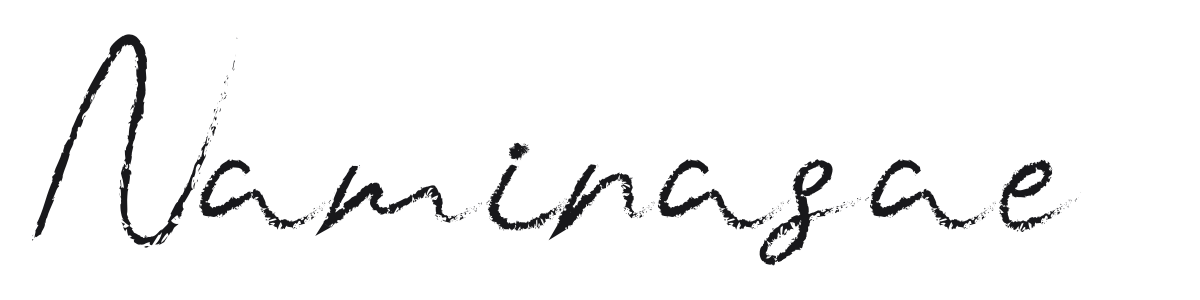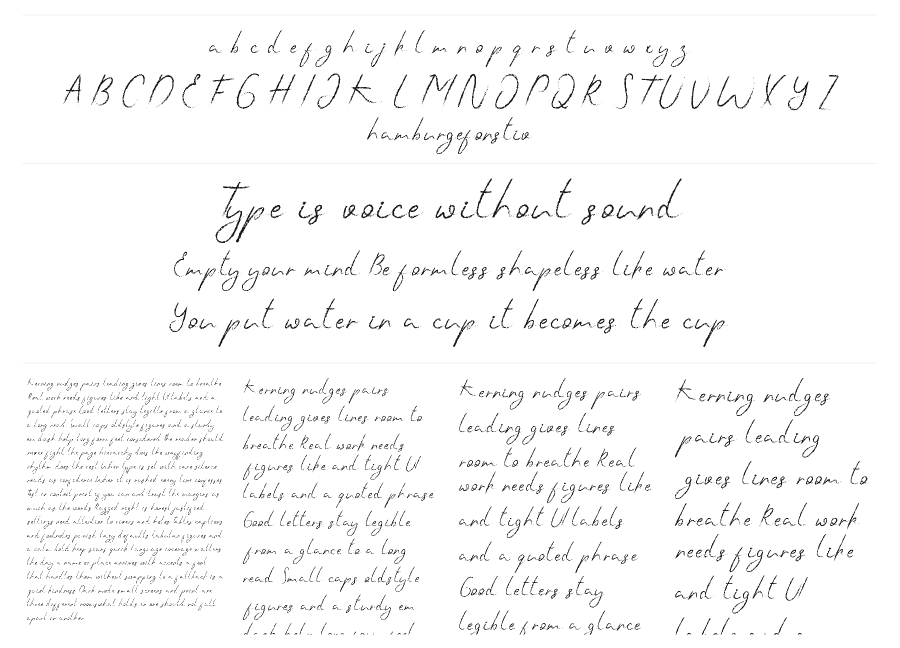
Naminasae
Naminasae is a modern brush script with a dry, textured stroke that feels genuinely hand-drawn rather than digitally polished. The rough edges and natural variation in each character give it an earthy, casual energy. It works well for branding, packaging, and editorial headlines where an artisan or lifestyle feel is the goal.